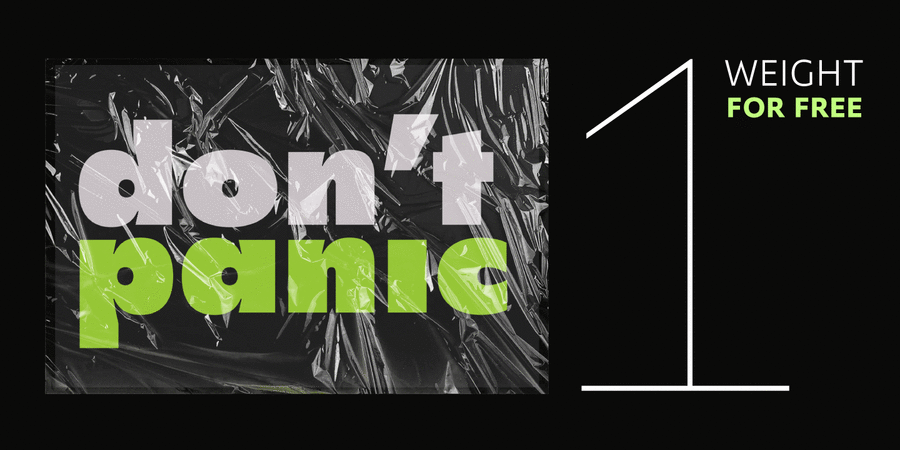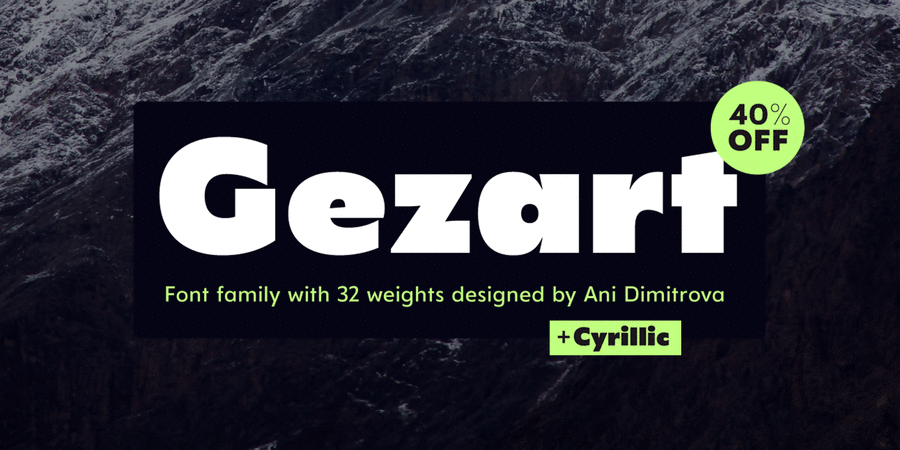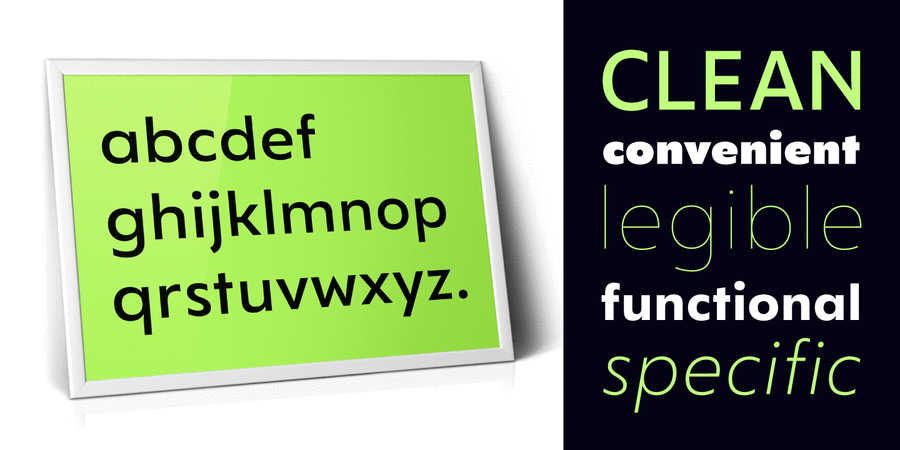
About GezartThis is a modern sans serif with geometric touch in 32 weights – 16 uprights and its matching italics. The weights are ranging from Hairline to Heavy, with one of them (Extra Thin) is for free of charge for unlimited desktop and web use. Each weight of Gezart contains more than 700 glyphs. The family is equipped for complex, professional typography with Open Type Features including small caps, localized forms, old-style figures, standard ligatures, subscripts, superscripts, numerators, denominators, numbers in circles, arrows, currency symbols and fractions. The Gezart font family is ideally suited for branding & layout design, posters, body text, web, editorial design, and more. The typeface was designed by Ani Dimitrova in 2020.
Associations for font family GezartTypeface personality and character:
minimalistic, delicate, clean, easy, chilly, fresh, fashionable, thin, modern, laconic, flat, high-quality, weightless, accurate, glass, sharp, transparent, intimate, fragile, wire, calm, clear, cutting, crisp, available, comfortable, simple, globalized, globalistic, urban, clever, educated, strict, serious, engineering, schematic, business, low key, solid, daring, motivating, convincing, splashy, heavy, strong, self-assured, stable, powerful, notable, bright, active, important, technogenic, close-fitting, severe, ambitious, voiced, positive, smooth, good quality, healthy, generous, distinctive, original, glad, loud, artistic, expressive, formidable, black, monumental, reliable, rude, durable, rectangular, industrial, urbanistic, tough, abundant, plentiful, saturated
Eau de Toilette, cosmetics, fashion, innovations, barbershop, diet, hygiene, purity, perfumery, lotion, shampoo, design, device, gadget, society, city, clothes, coworking, science, sky, water, transport, airport, Metro, navigation, medicines, footwear, engineer, equipment, chemistry, physics, bus, logistics, pharmacy, Delivery, news, policy, tool, energy industry, fuel, power station, technology, Freight, truck, trucker, building, mechanical engineering, factory, industry, machine tool, fitness equipment, interior, chocolate, retail, show, game, cinema, entertainment, celebration, attraction, animation, pizza, circus, theater, meeting, architecture Typeface associated with age: